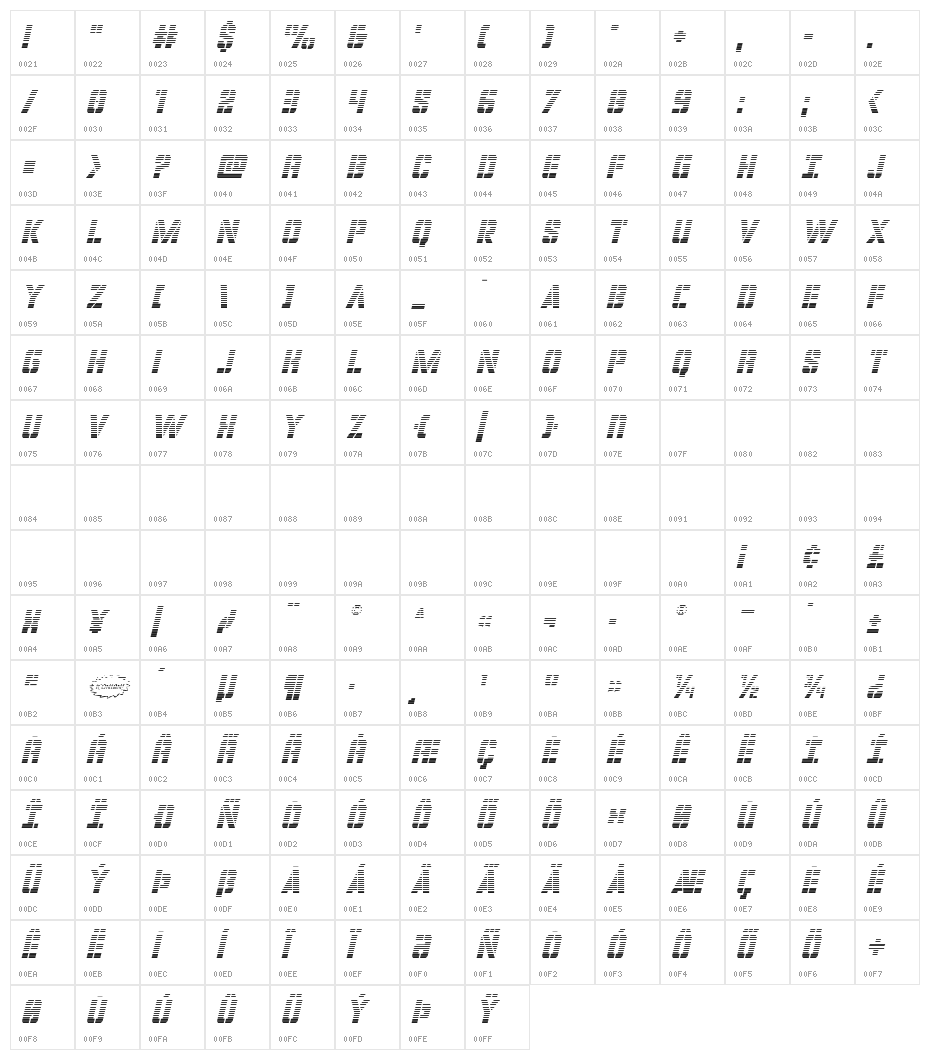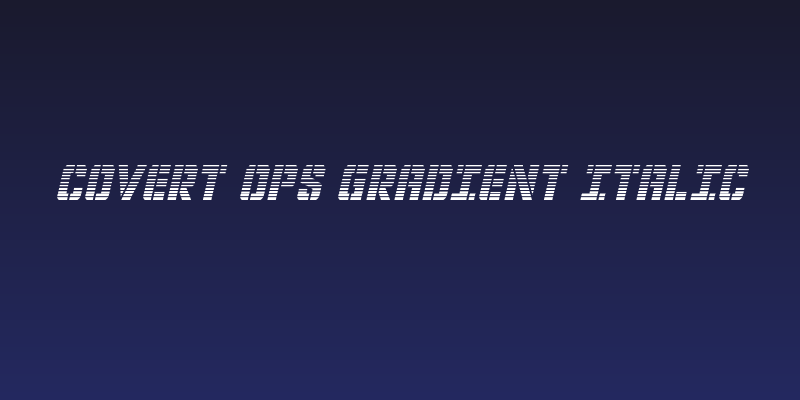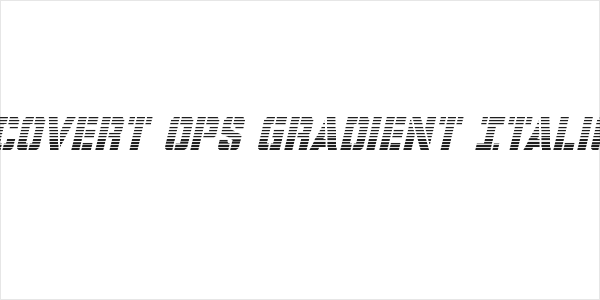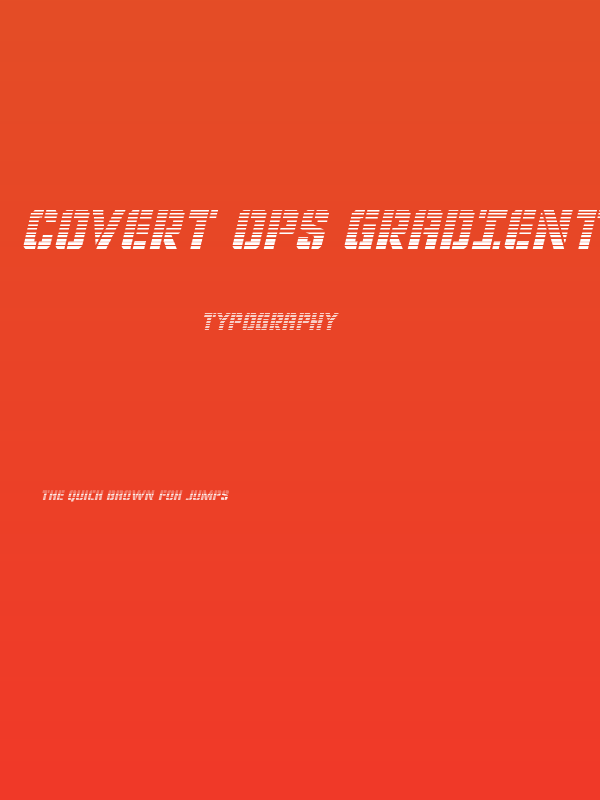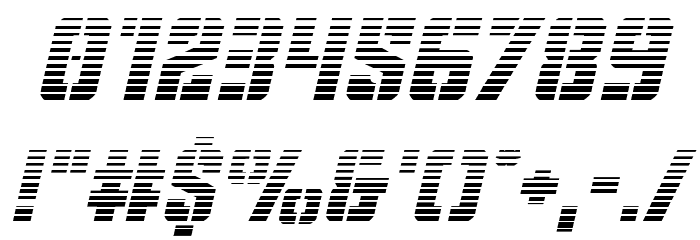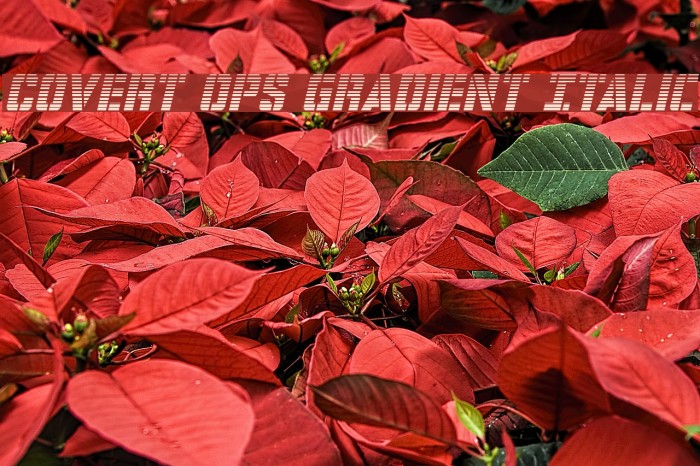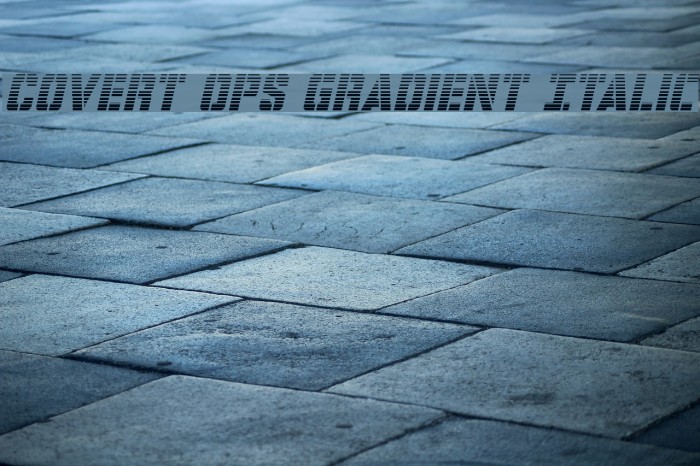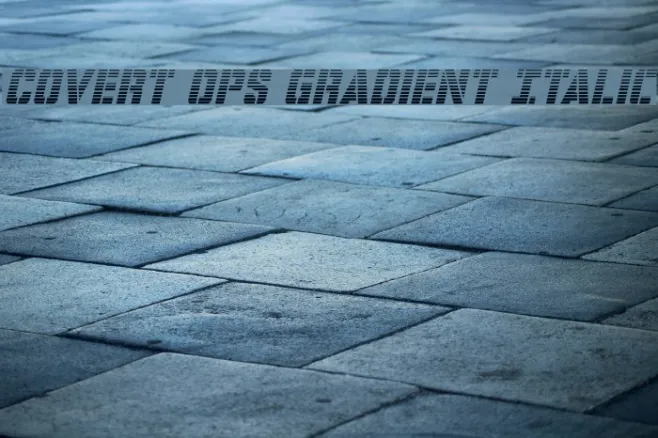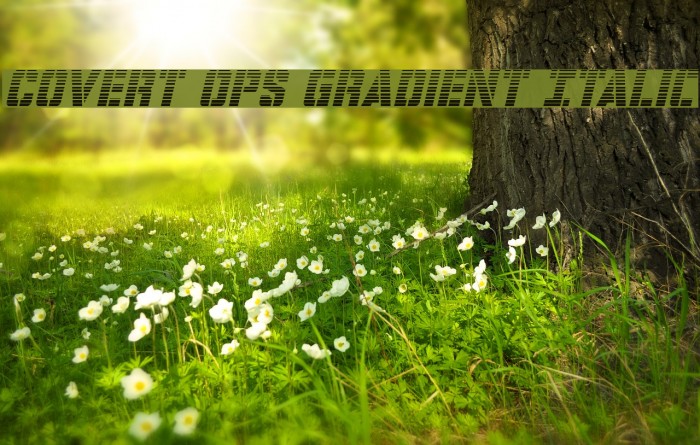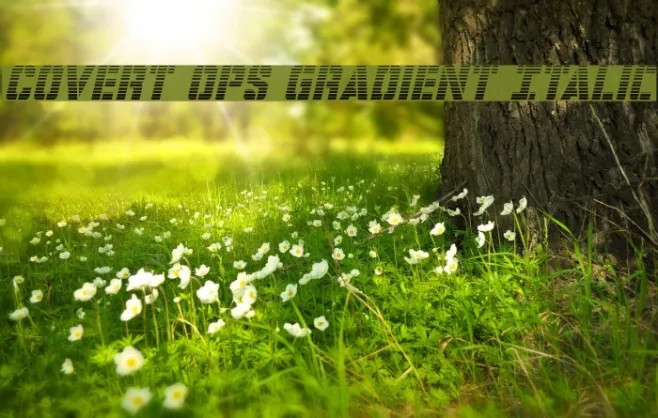
Covert Ops Gradient Italic Font
Covert Ops Gradient Italic Description
This font features a bold, italicized style with a unique gradient effect created by horizontal lines. The characters are designed with a futuristic and dynamic appearance, making them stand out with a sense of motion. The uppercase and lowercase letters maintain a consistent slant, enhancing the italicized look. The numbers and special characters follow the same design principles, ensuring uniformity across all glyphs. The font's distinct style is suitable for projects that require a modern and edgy aesthetic.
| Proposed Projects | Ideal for video game titles, tech branding, sci-fi posters, and dynamic advertisements. |